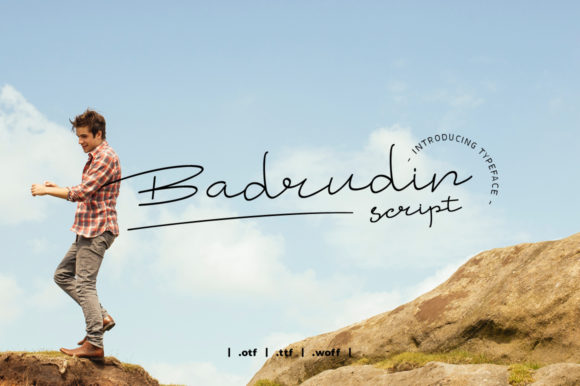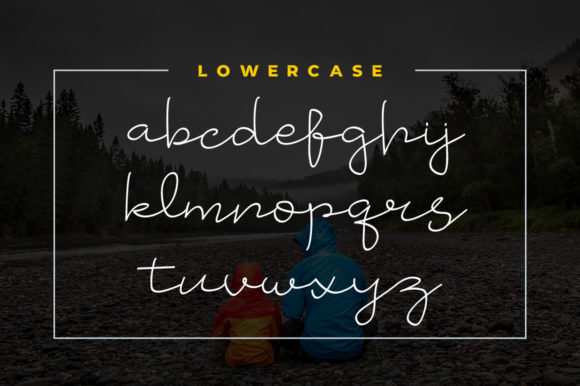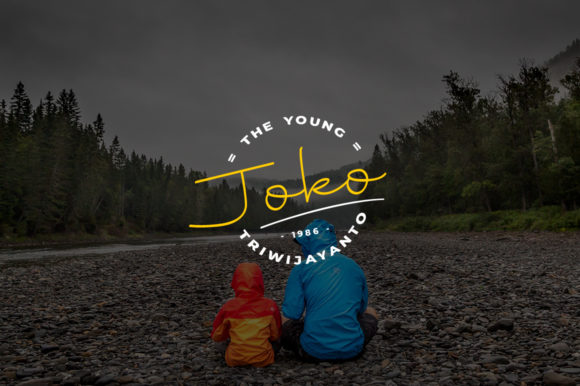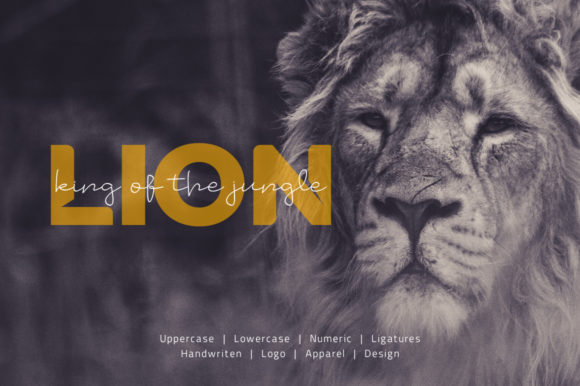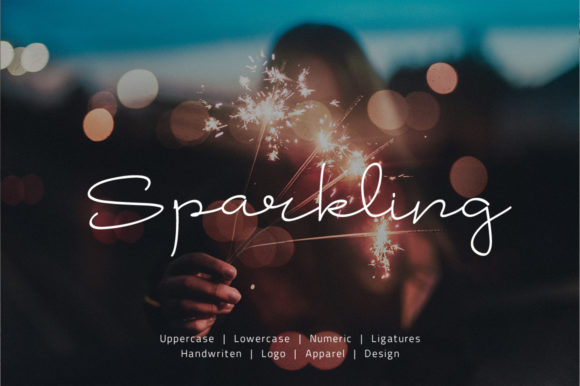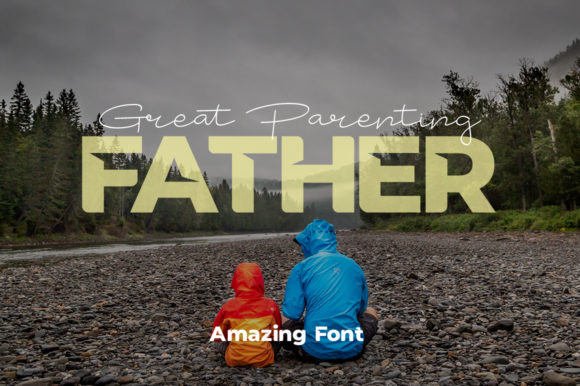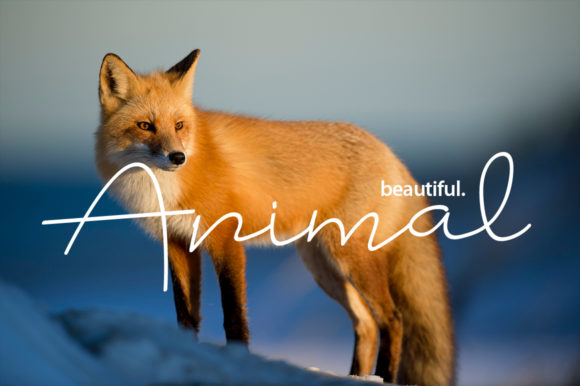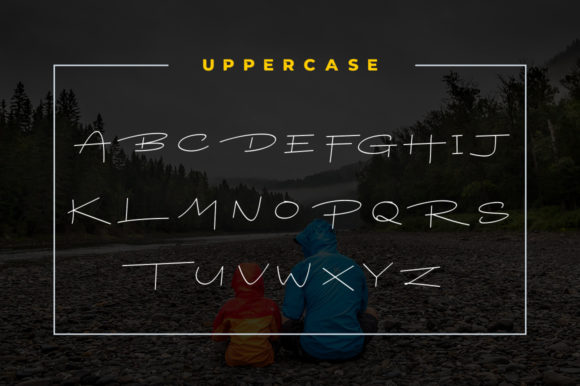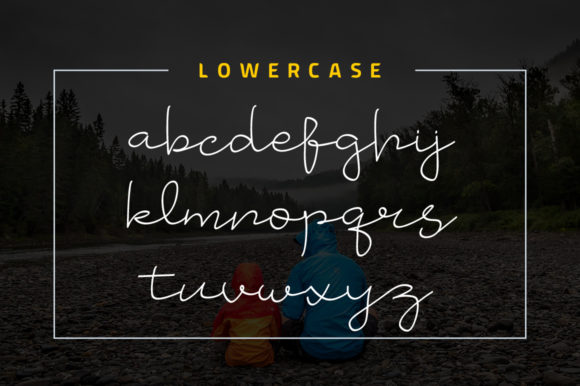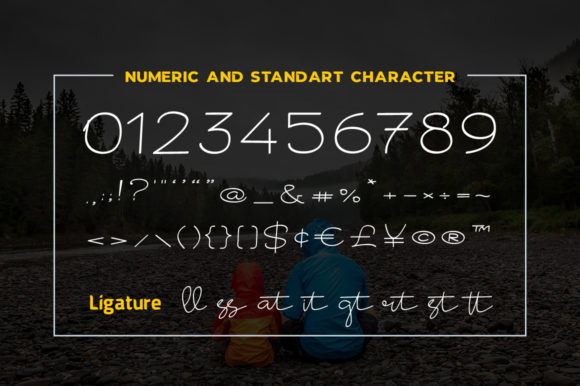
HomeScript FontsBadrudin Font Script Fonts Badrudin Font FacebookXPinterestWhatsApp Badrudin Font Poster 2 Badrudin Font Poster 3 Badrudin Font Poster 4 Badrudin Font Poster 5 Badrudin Font Poster 6 Badrudin Font Poster 7 Badrudin Font Poster 8 Badrudin Font Poster 9 Badrudin Font Poster 10 About Badrudin Font Badrudin is a wonderfully unique handwritten font that will effortlessly put an authentic spin on any design idea. DOWNLOAD NOW People also explored Uto Magilova Font Jack Skull Font Butter Nudder Font Stronger Font Krisward Font House Font Lovely White Font GR Read Font 339 0 TagsBadrudin Font Previous articleRaidden Family FontNext articlePerfect Sweet Trio Font LEAVE A REPLY Cancel reply Comment: Please enter your comment! Name:* Please enter your name here Email:* You have entered an incorrect email address! Please enter your email address here Website: Save my name, email, and website in this browser for the next time I comment. Personal Use Free Crayones Personal Use Free Read more about this font Anggraini Personal Use Free Read more about this font Pelmeshka Personal Use Free Read more about this font Dead Block Personal Use Free Read more about this font BLOG Where to Buy American Fonts Online in 2024 Where to Buy American Fonts Online: The Ultimate Guide for 2024 Looking for the perfect American font to elevate your design projects? You're in the... Transform Your Website: Elevate Your Typography with 7 Best Web Font Generators The 10 Best Handwriting Fonts to Add Personality to Your Designs Free vs Paid Fonts: Why Investing in Premium Fonts Is Worth It